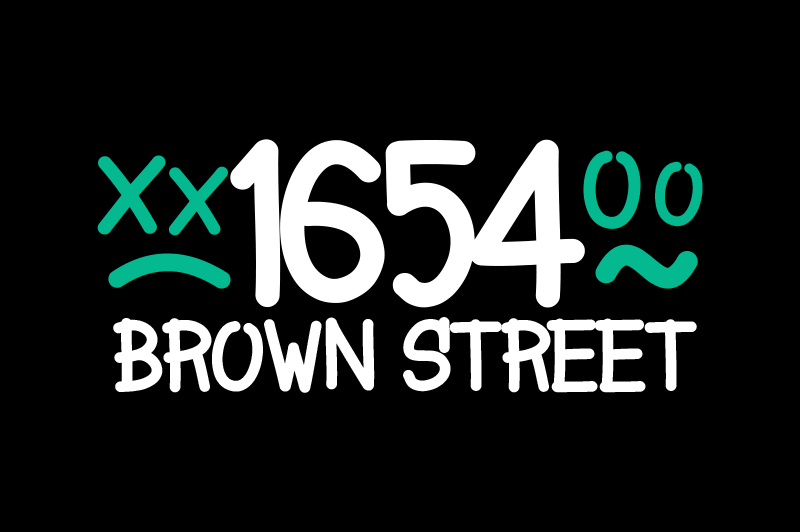
1654 Brown Street - Fonts
"From the city to our font library"
The city is everywhere, flow and style on the wall. 1654 Brown Street is a experimentation of street culture. The radius of the font is the same thant the old street marker.